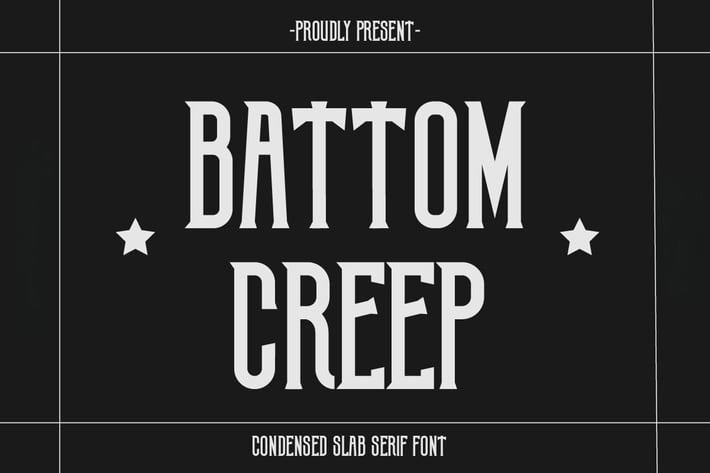
Battom Creep – Gothic Vintage Display Font
Battom Creep is a bold gothic display font with strong vintage character and a dark, moody edge. Perfectly suited for horror-themed projects, band logos, posters, and editorial headlines, this typeface blends sharp lines with an antique aesthetic to create dramatic visual impact.
Whether you're designing a retro-horror poster, dark branding, or metal album cover, Battom Creep delivers power and personality in every letter.
- Gothic-inspired vintage display font
- Ideal for horror, metal, or dramatic branding
- Strong character with classic serif structure
- Works great in large titles and posters
- Includes uppercase, lowercase, numbers & symbols
Battom Creep brings bold drama and old-world charm to your typographic compositions.
Add a gothic and vintage charm to your designs with Battom Creepy – the perfect font for a bold and striking visual impact.